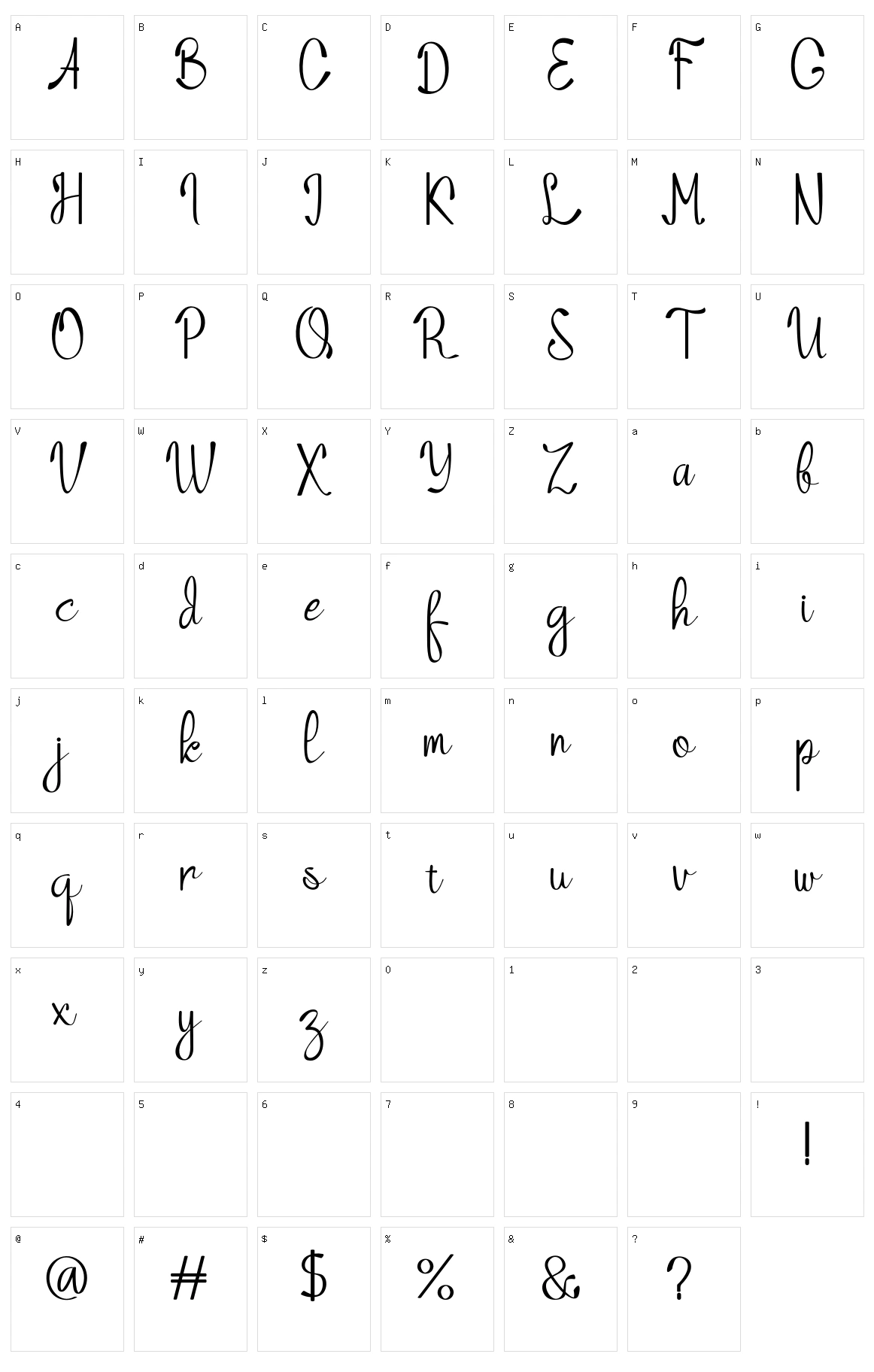
The free font Nozomi is carefully designed by Jprint Studio, showcasing a thoughtful balance of creativity and usability and falls under the Script font style. When you download the ZIP file, it contains only 32.38 KB of font files, making it lightweight and quick to download. Please review the license details below to understand permitted usage and distribution rights. If license information is not available, we recommend using this font for personal projects only or contacting the author directly for commercial usage permissions.